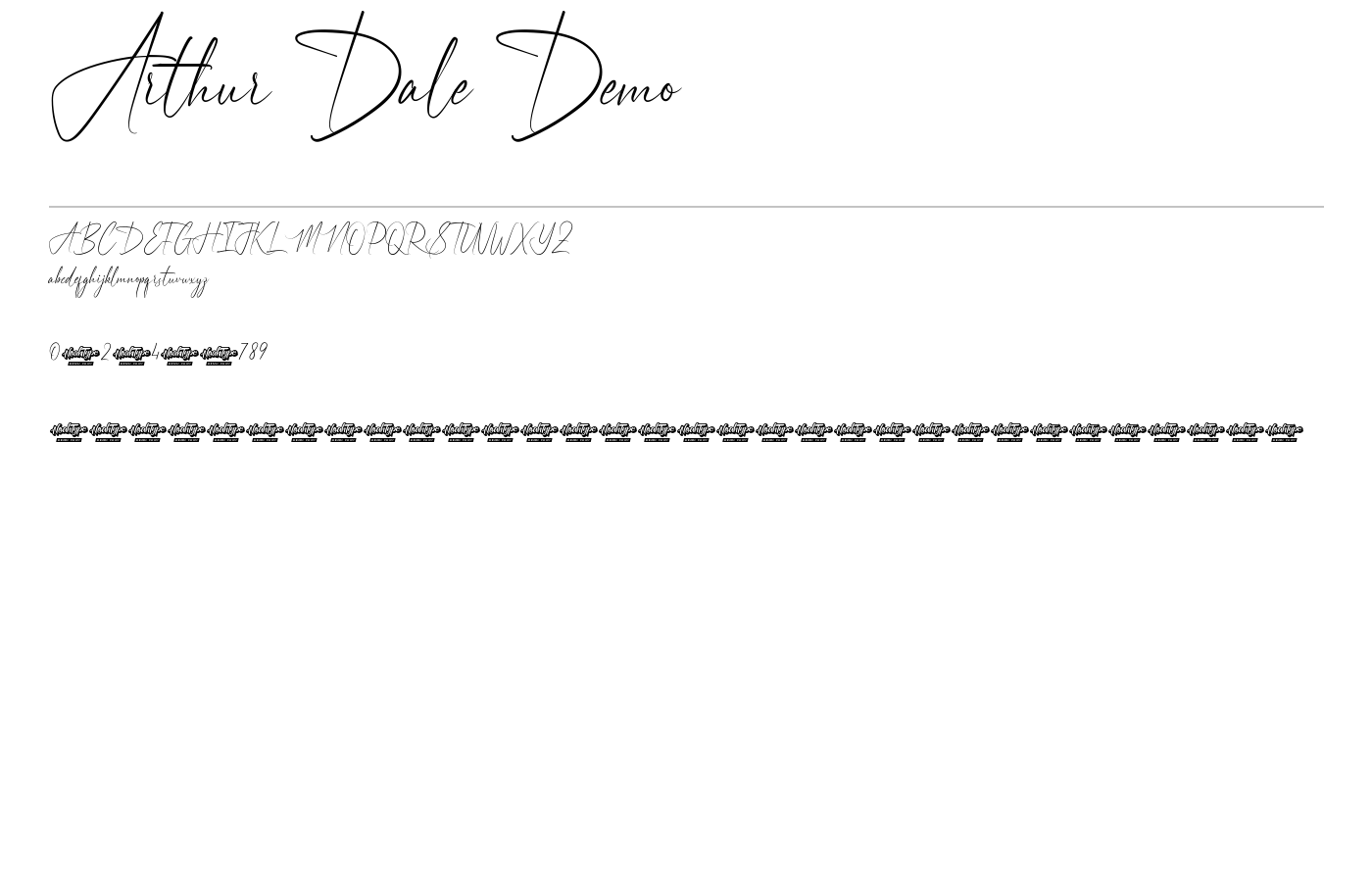
Arthur Dale Demo is a delicate and elegant script font characterized by its thin, flowing strokes and graceful, handwritten style. It exudes a refined, modern sophistication ideal for luxury branding, wedding invitations, and upscale editorial projects that seek a personal yet polished feel. This font works best in large sizes where its fine details and airy letterforms can shine, adding a touch of romance and elegance.
Arthur Dale Demo Font
About Arthur Dale Demo Font
| Font family | Arthur Dale Demo Font |